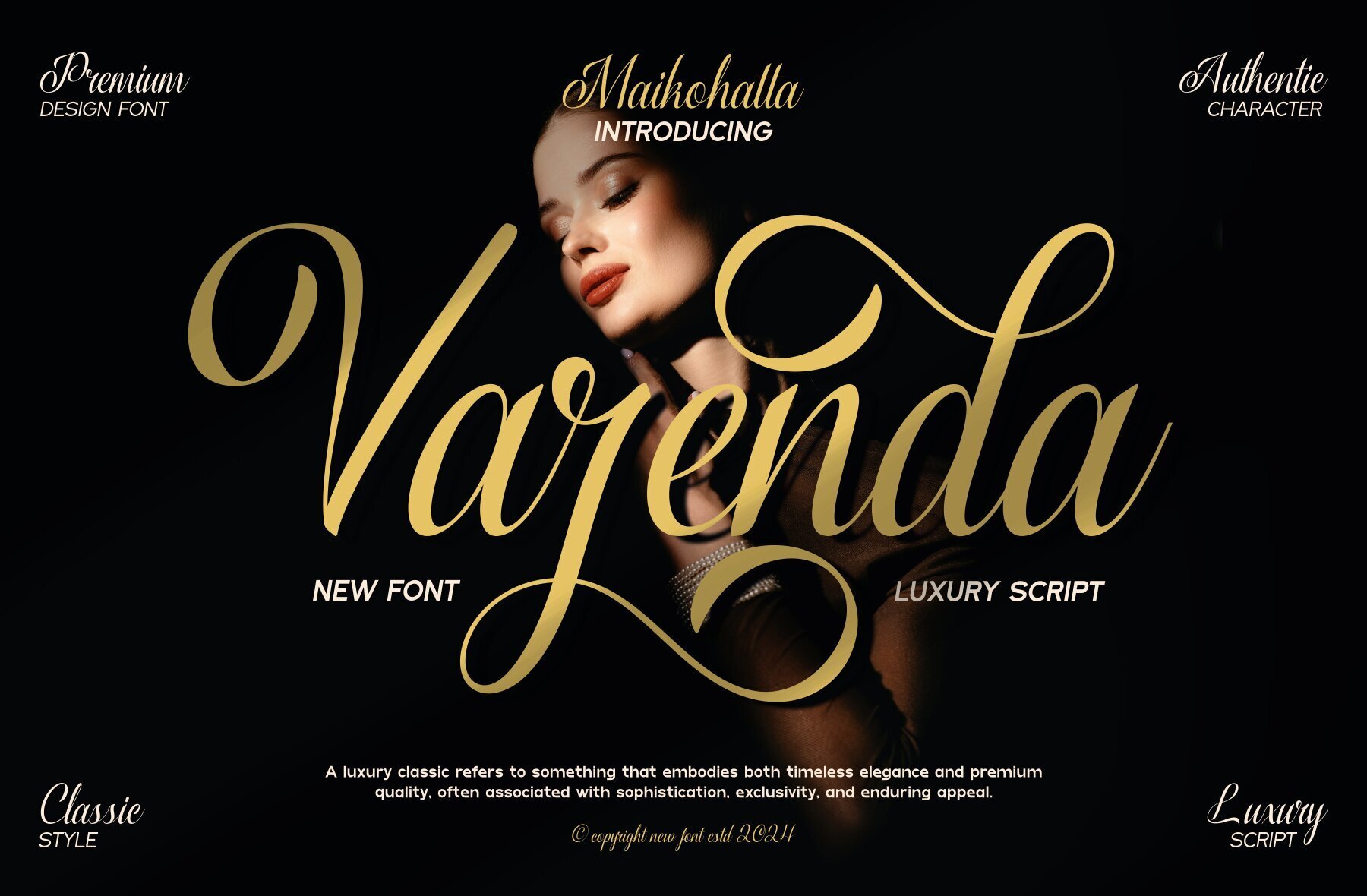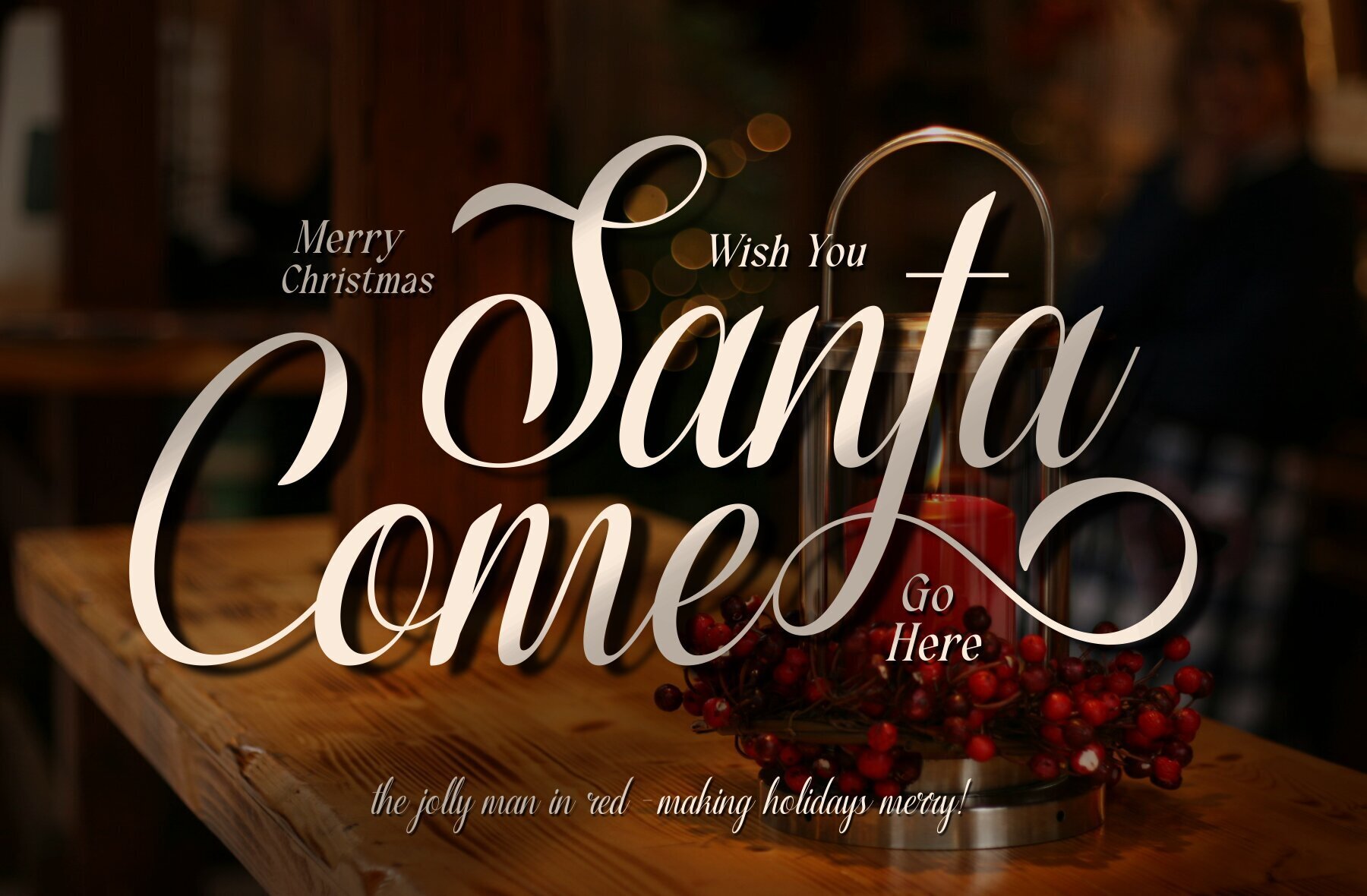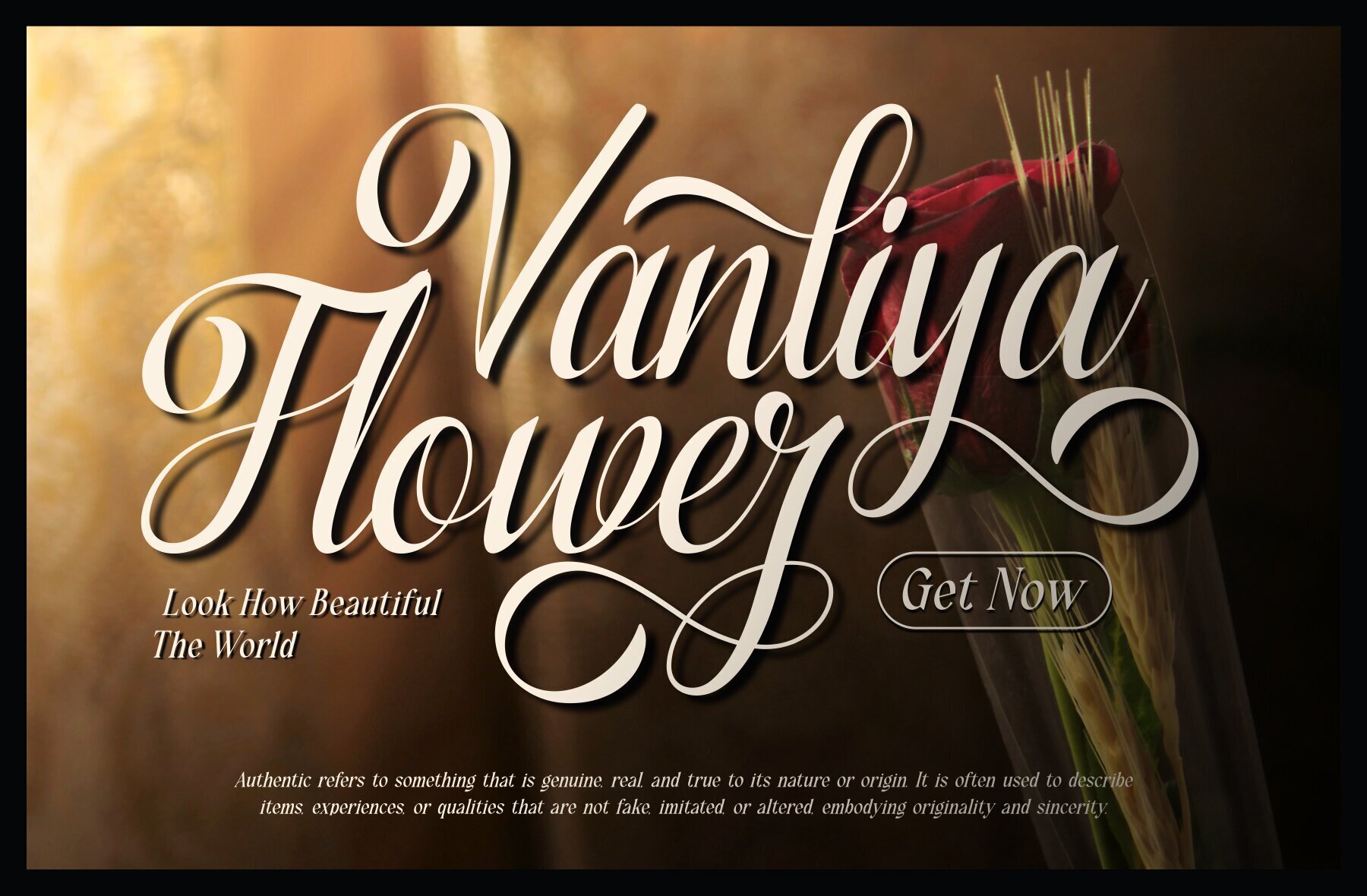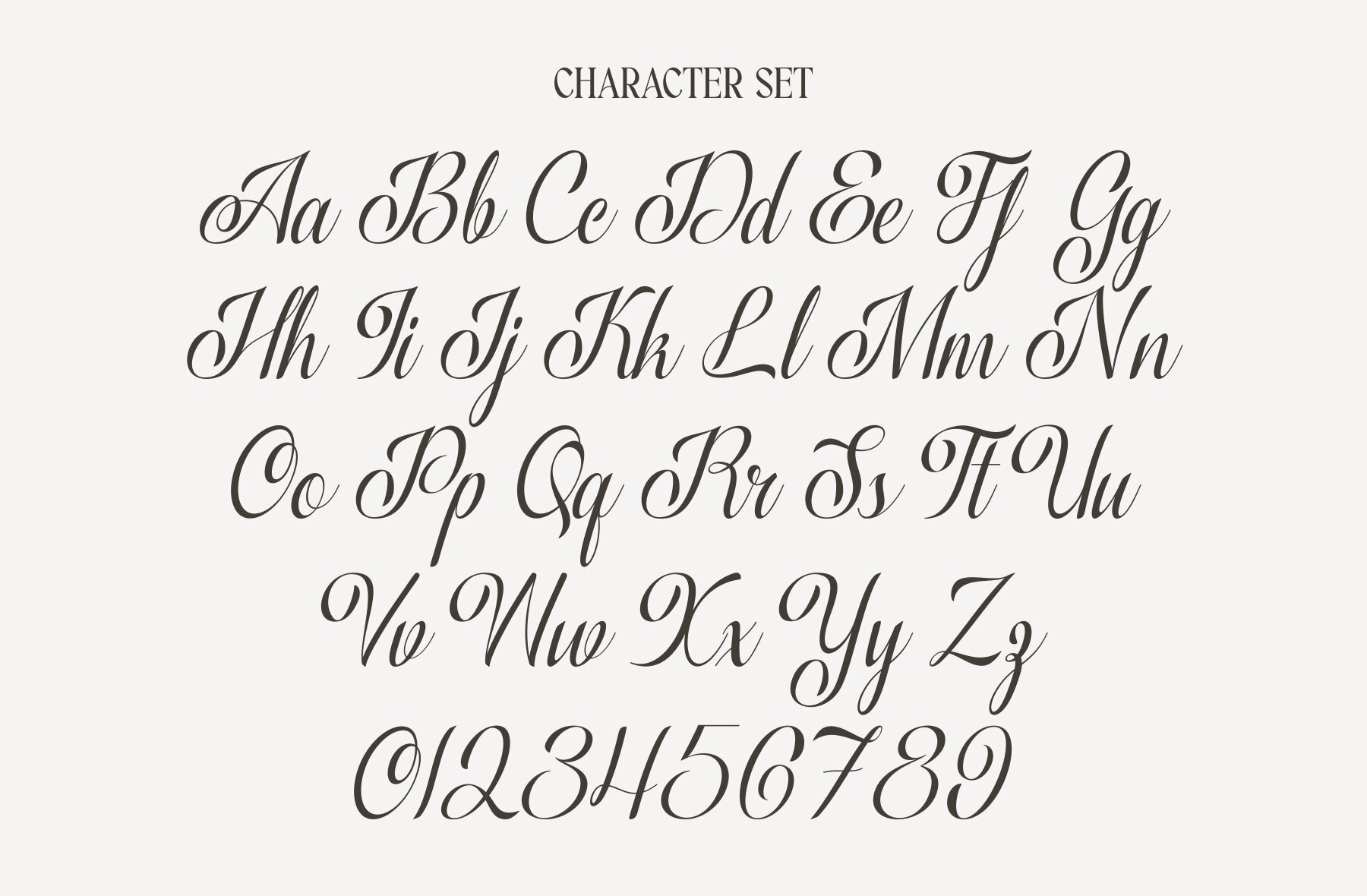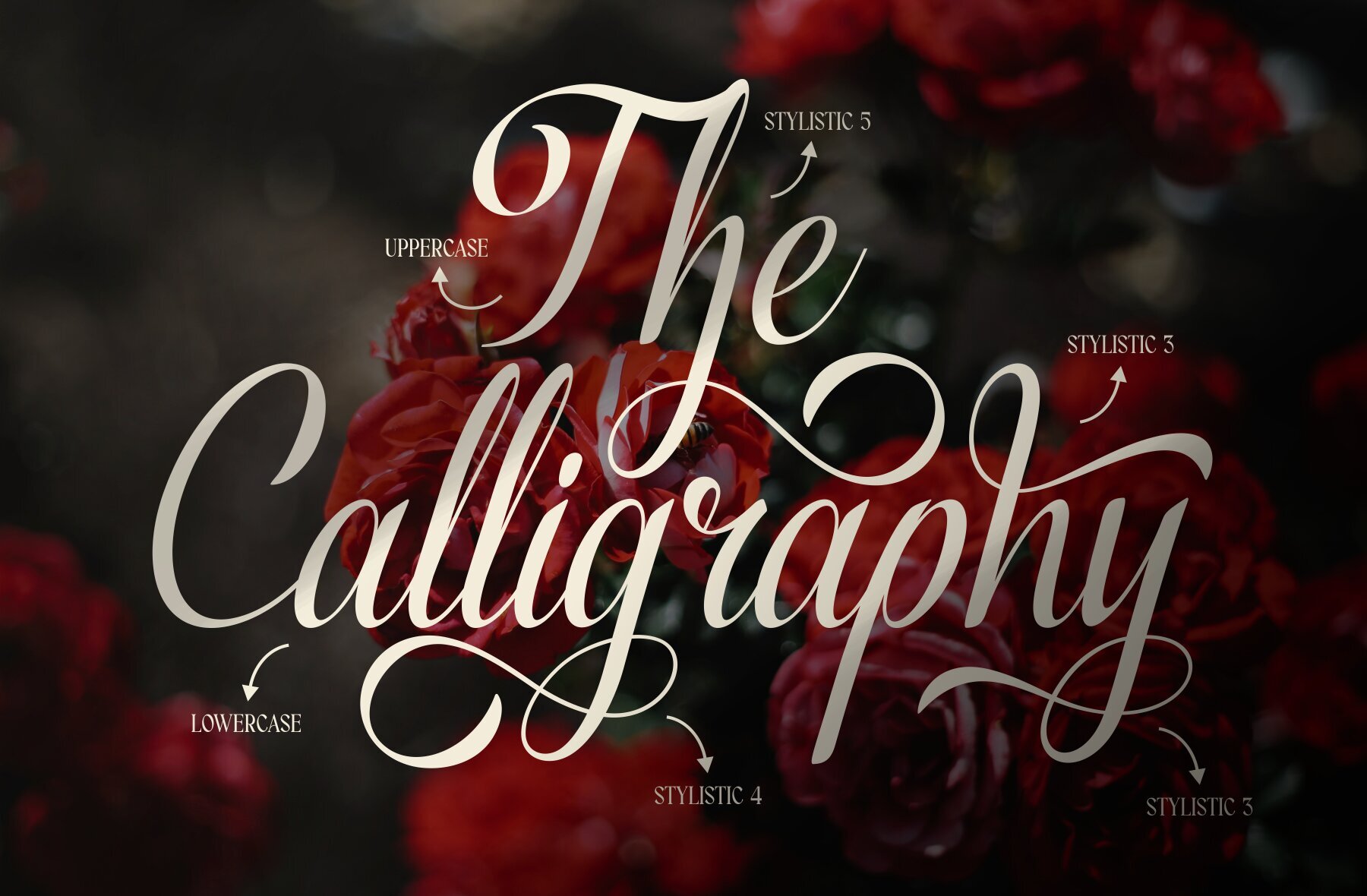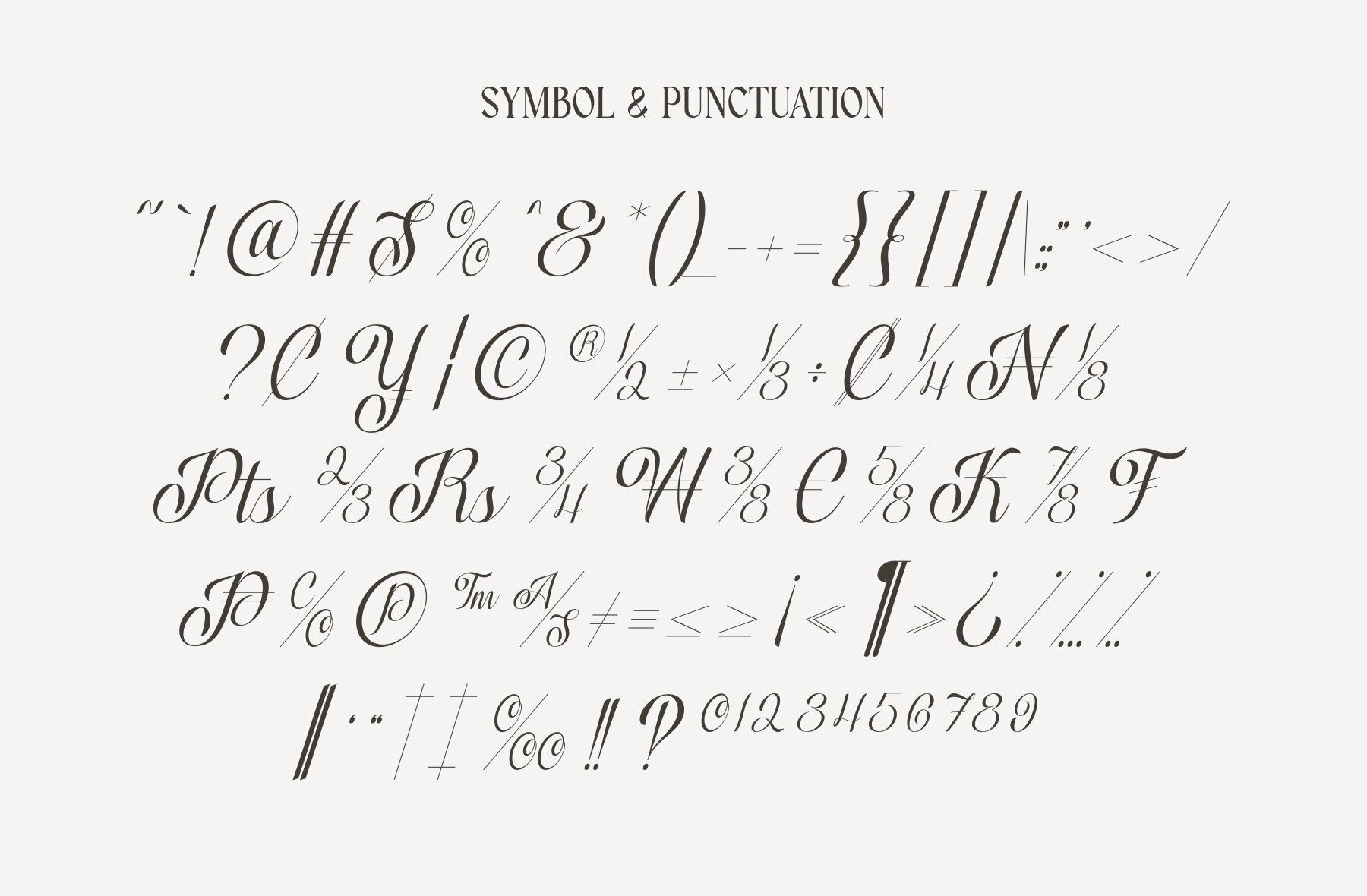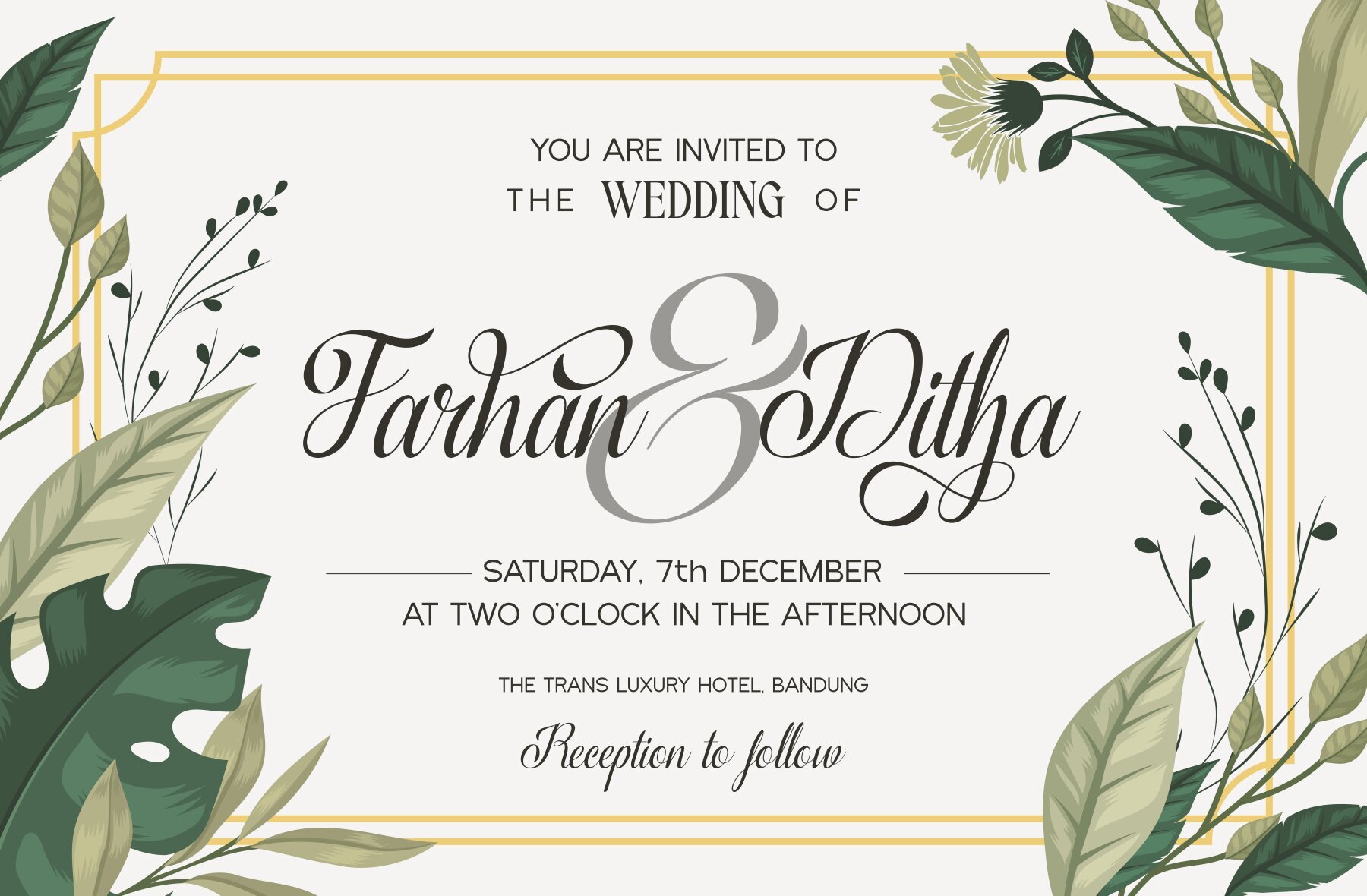
Varenda Font
Varenda
Varenda is a versatile font that seamlessly integrates into diverse design landscapes. Its clean and contemporary style combined with its notable simplicity offers a visually appealing choice for graphic design and modern typography. This font excels in providing a professional and polished look that suits a variety of creative projects.
Features of Varenda include a complete set of uppercase and lowercase characters, making it suitable for both headlines and body text. It supports multilingual characters, ensuring compatibility with a wide range of languages. Additionally, Varenda boasts ligatures and alternate characters, enhancing its flexibility and allowing designers to add unique touches to their compositions.